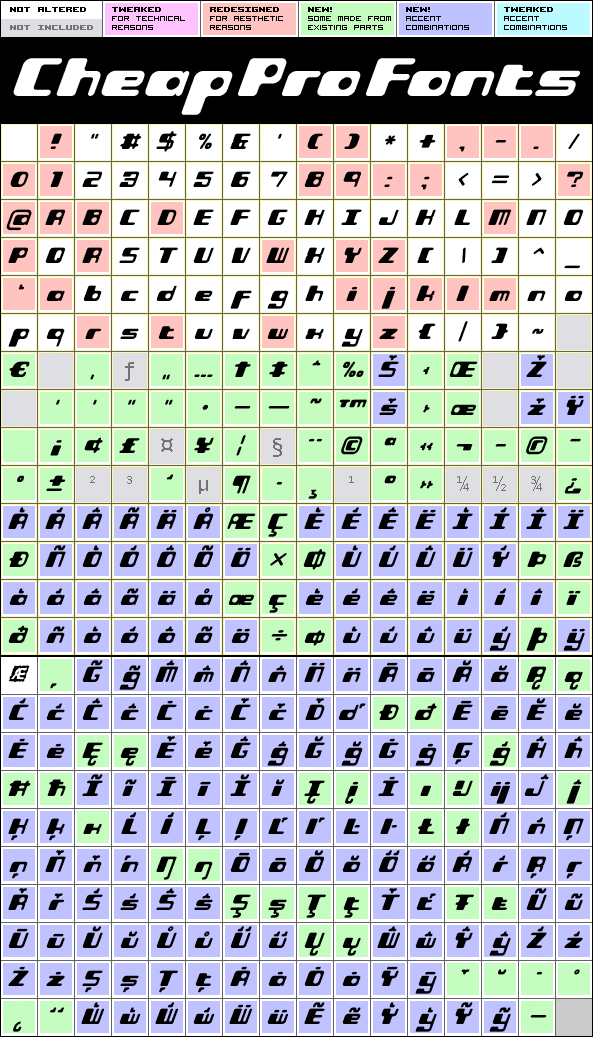
A 20 degree slant, and this speedier variant of Brian Kents psychedelic font is ready for use (for those who use software where you cannot slant the upright version yourself ;)
Phorfeit Slanted BRK Pro is a professionally reworked font that contains an extended character set for setting text in 65 languages requiring more than the basic A-Z!